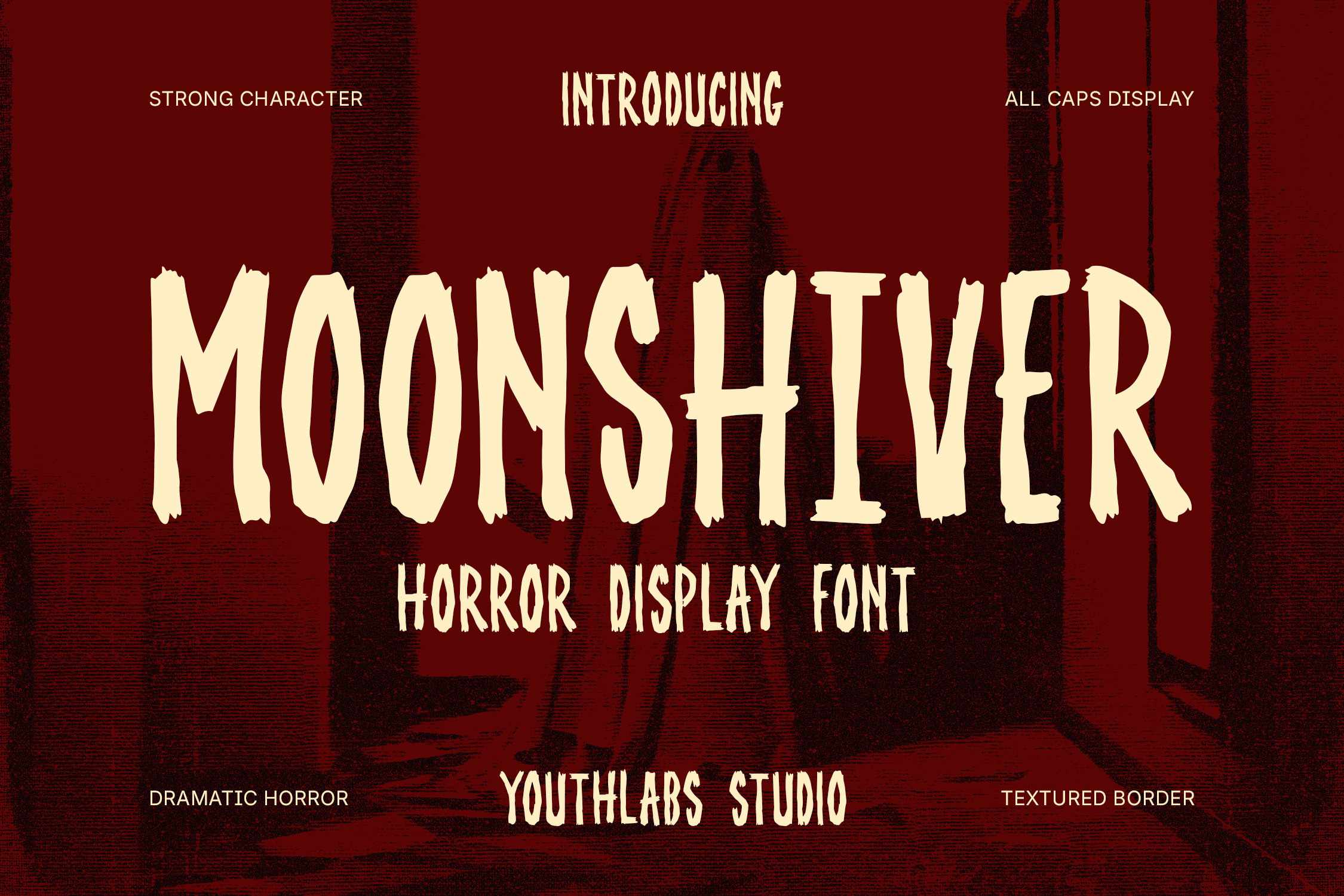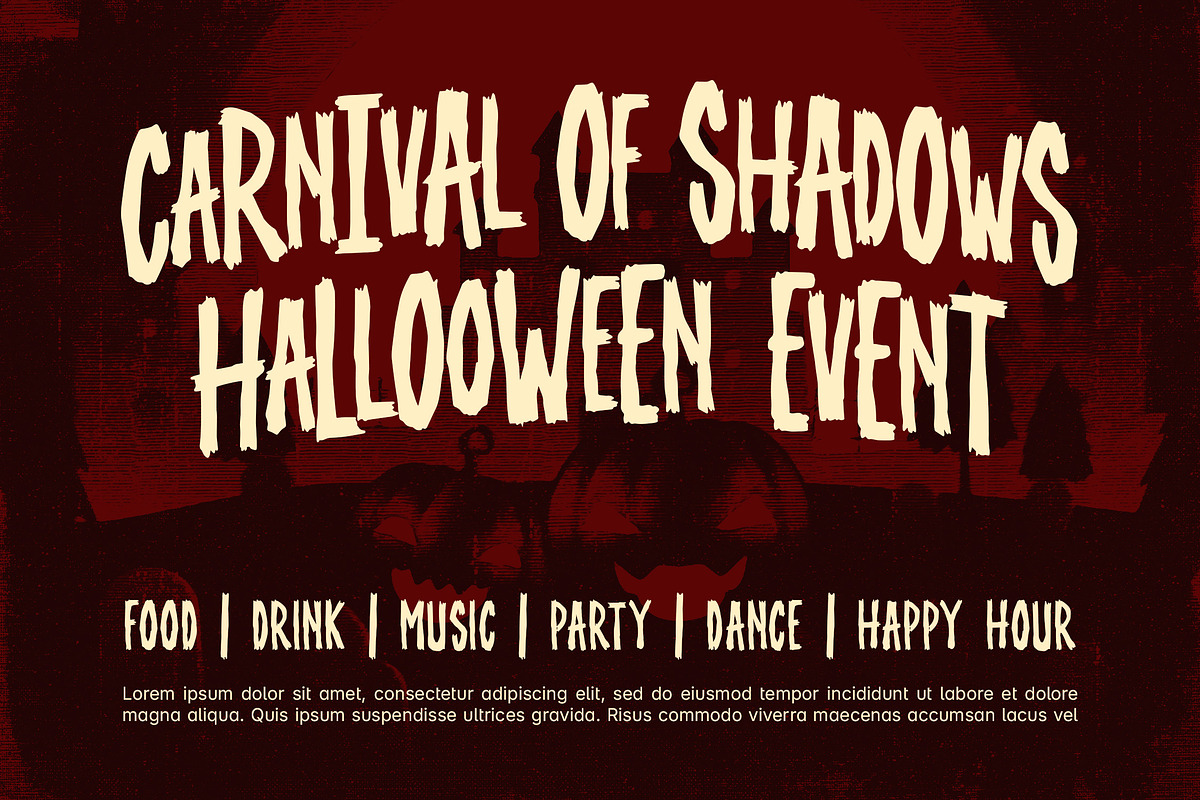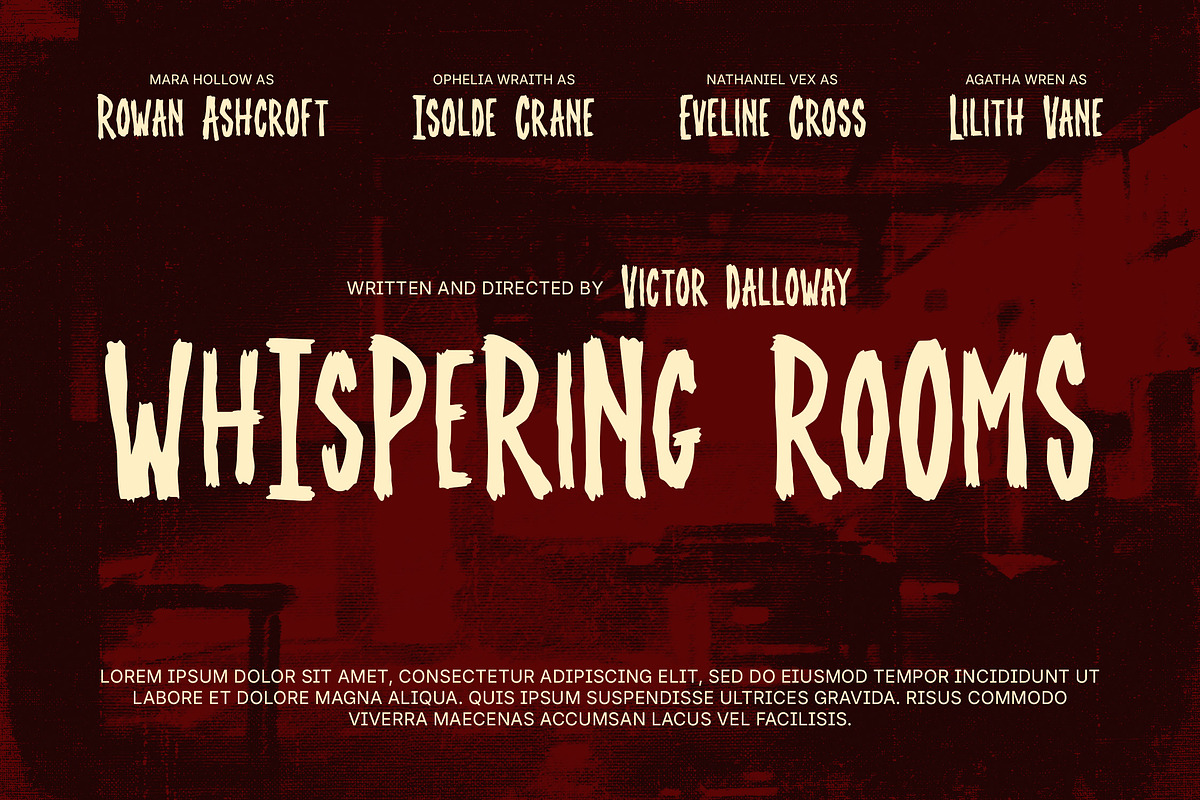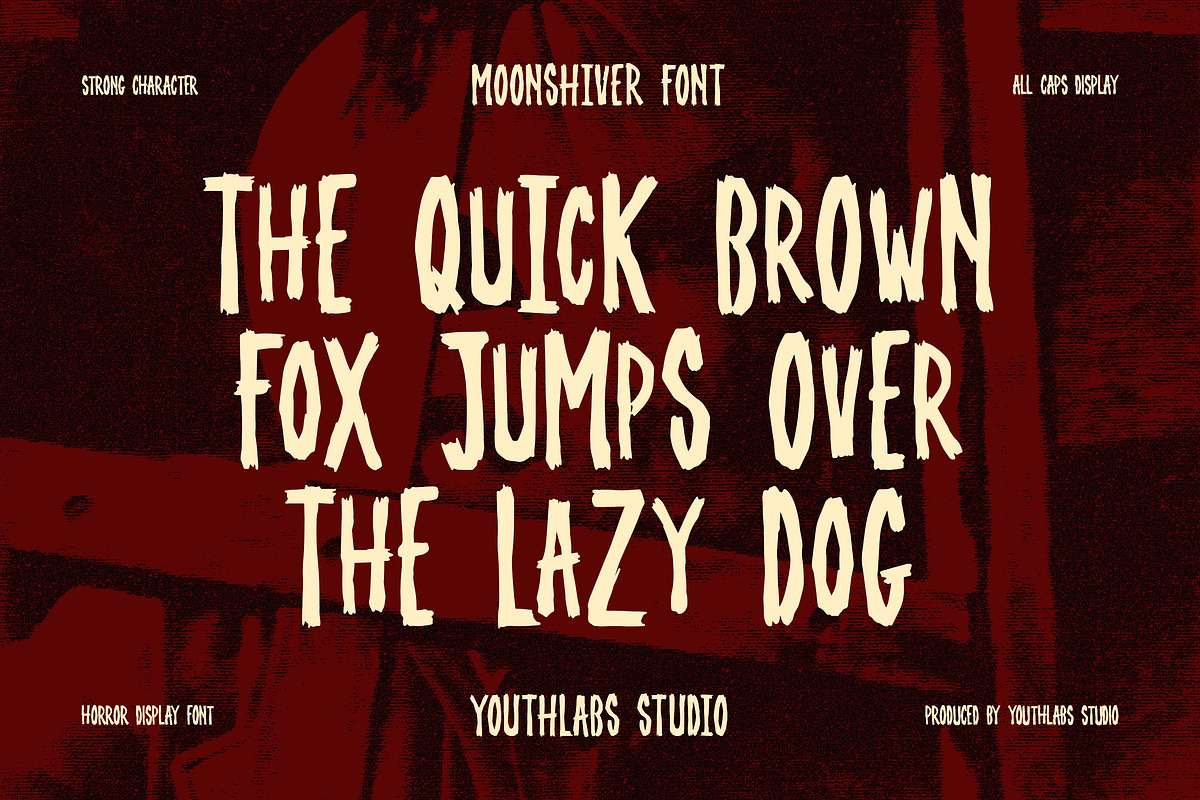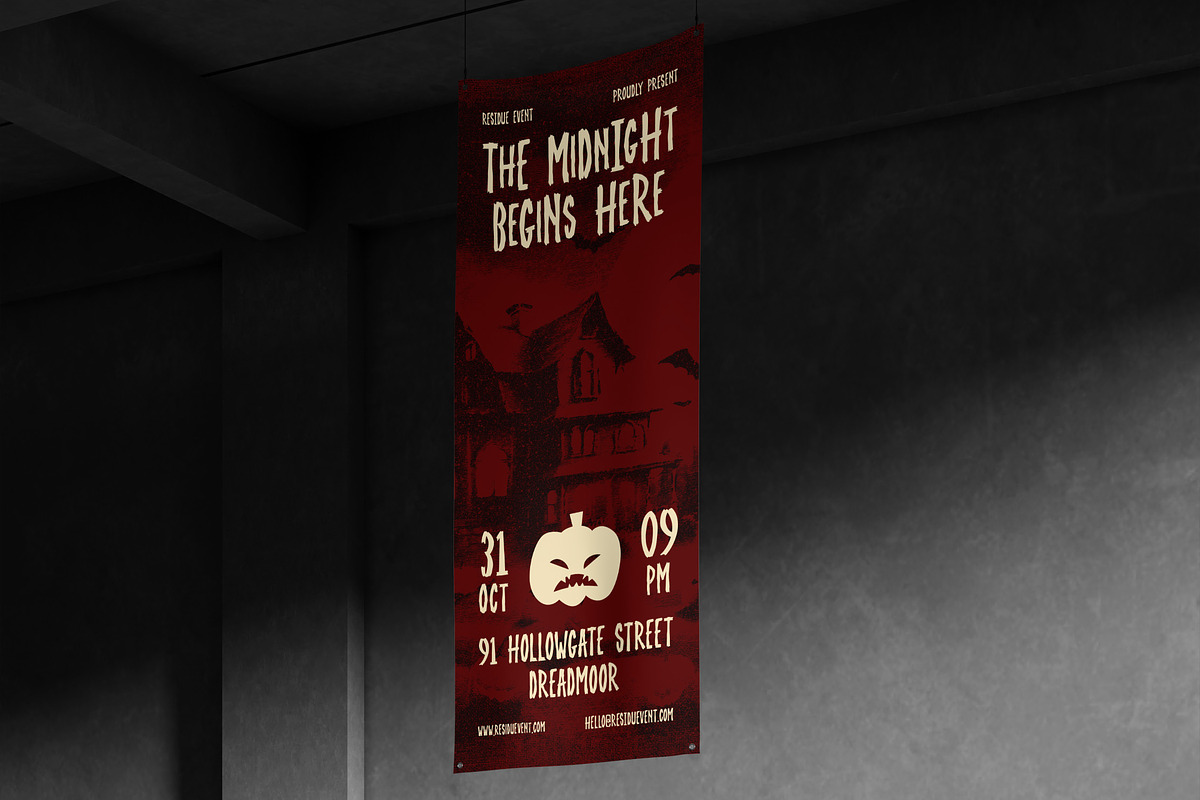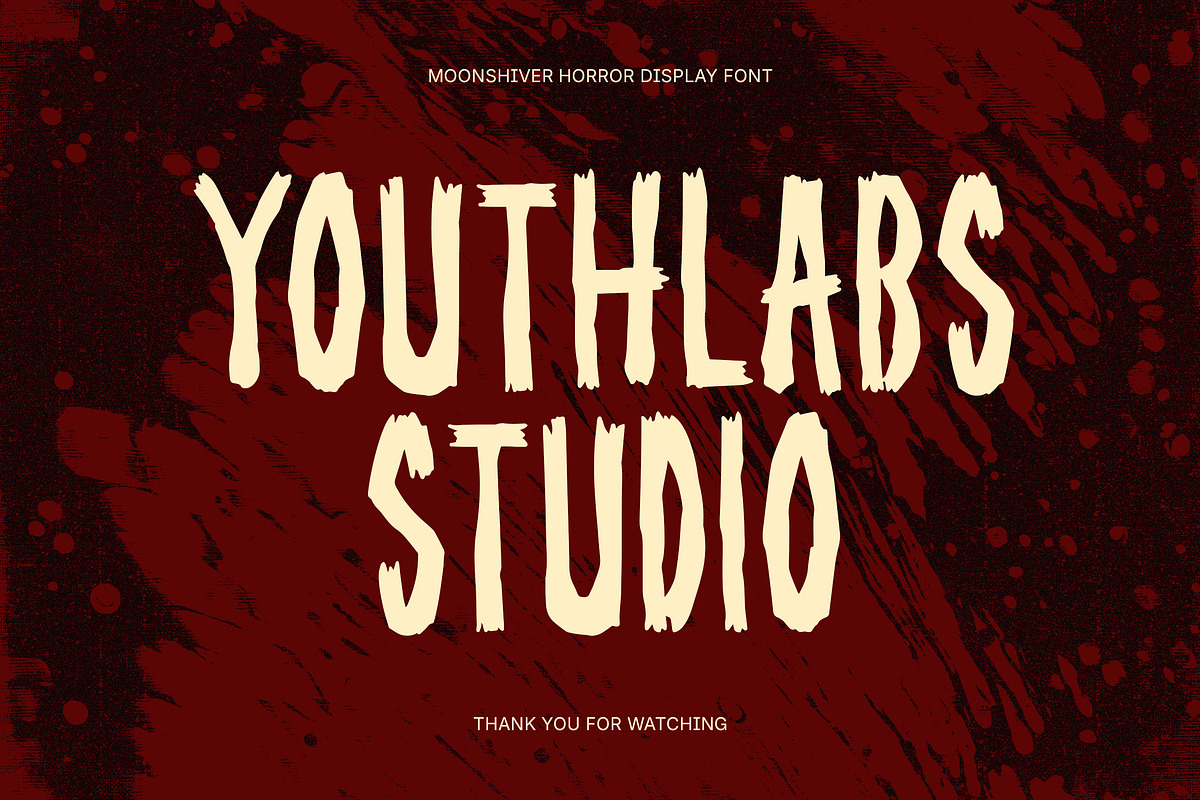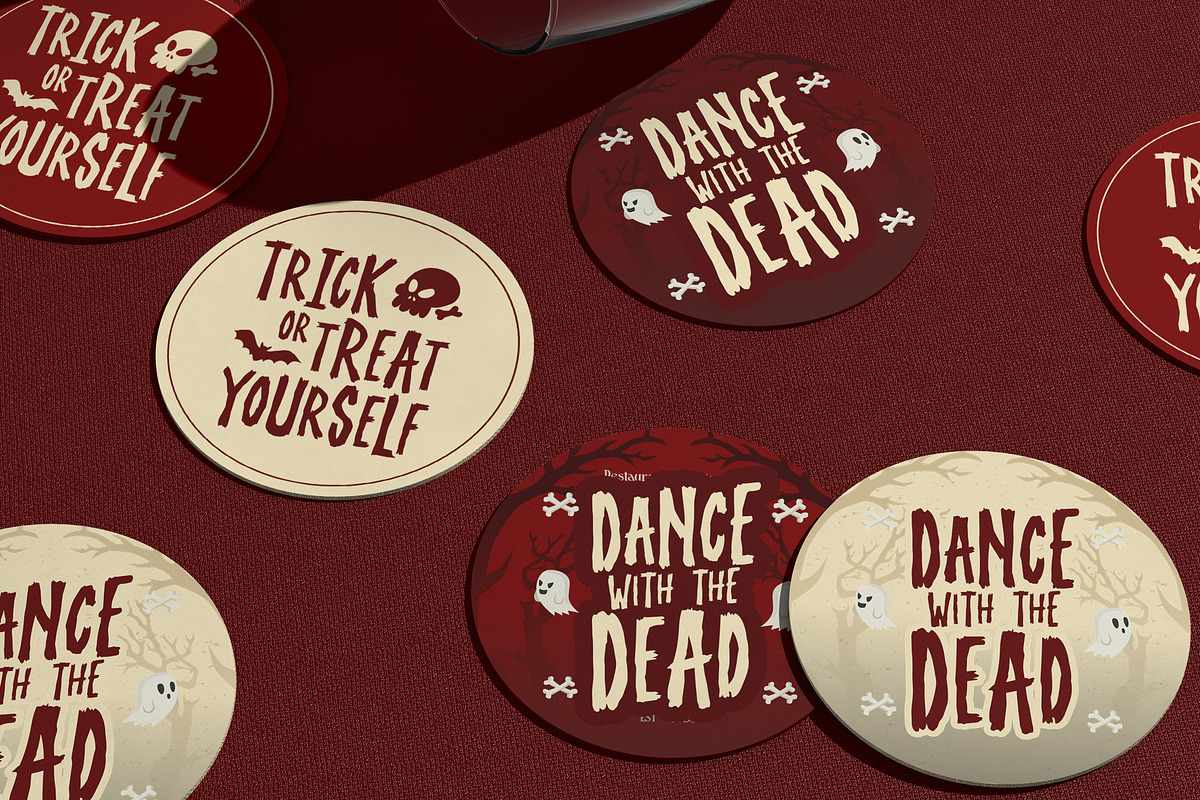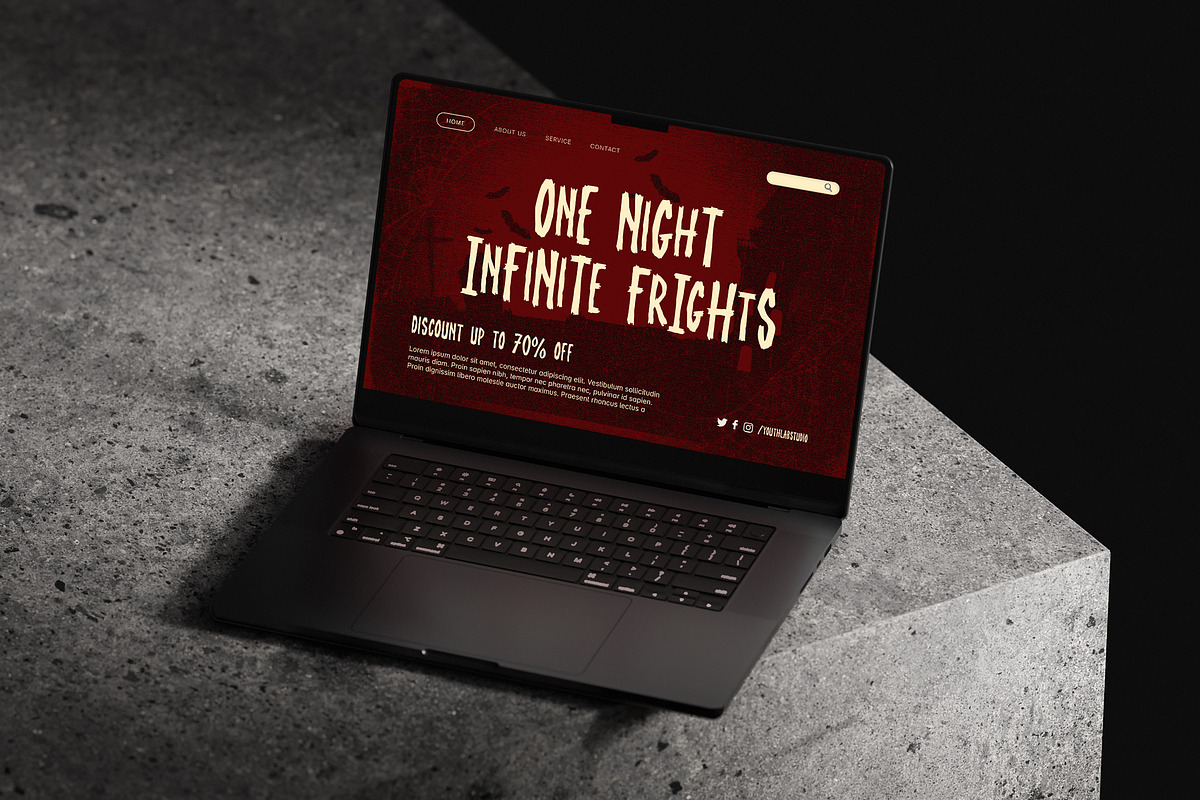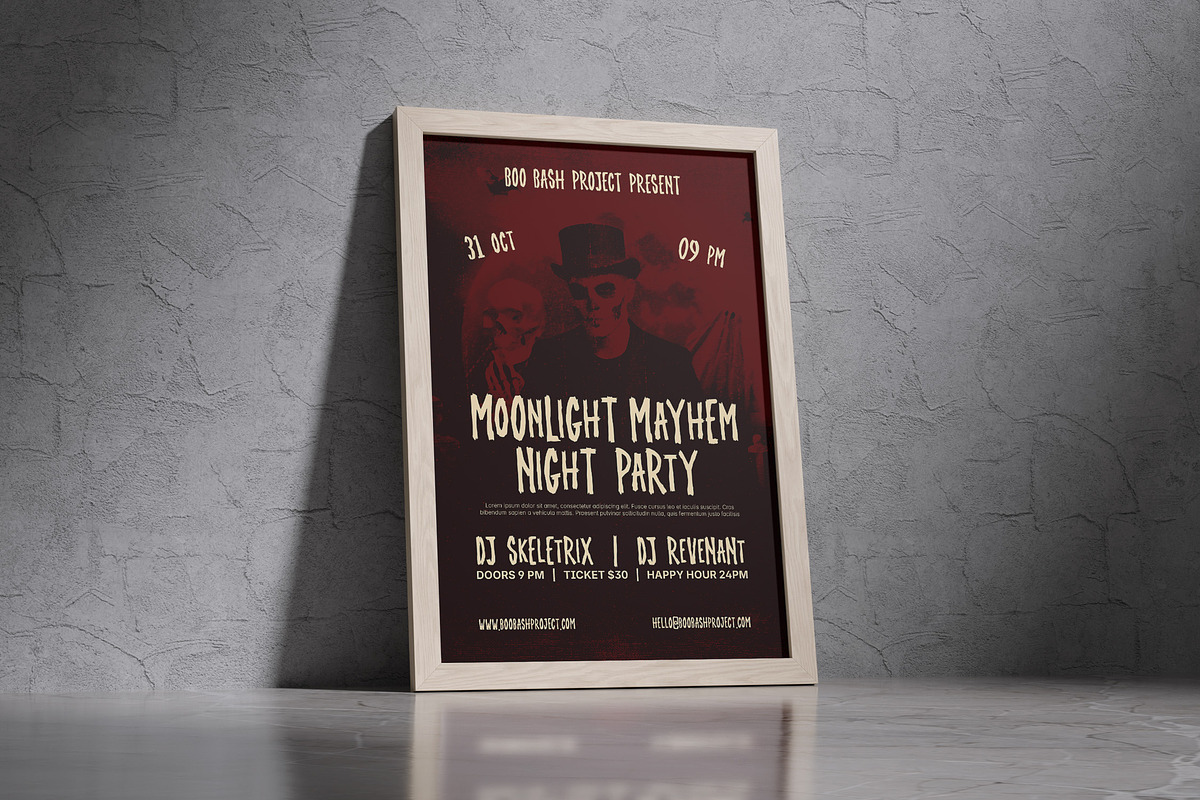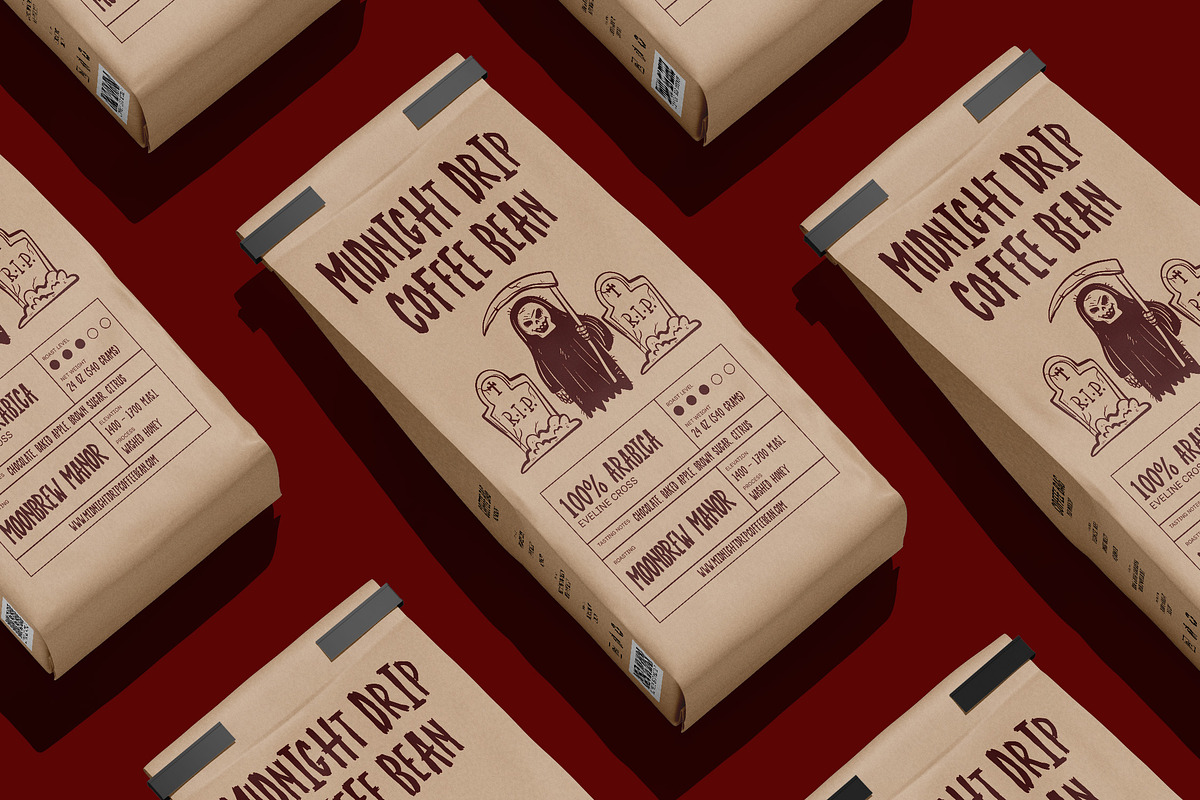
Moonshiver - Horror Display Font
Moonshiver is a dramatic horror display font that sends chills down your spine. Designed with jagged, hand-drawn strokes and a gritty texture, it perfectly captures the tension of dark hallways, eerie shadows, and unseen whispers. Its all-caps form and strong character make every word scream with suspense and cinematic energy.
Whether you’re designing horror movie posters, Halloween party invitations, eerie branding, or dark merchandise, Moonshiver adds a haunting personality to every project. It’s bold, textured, and dripping with vintage horror charm—ideal for anything that needs to feel mysterious, scary, or thrilling.
- All Caps Horror Display Font
- Rough, textured letterform with vintage horror aesthetics
- Perfect for posters, movie titles, and Halloween designs
- Includes uppercase letters, numbers, and punctuation
- Great readability with a strong, bold presence I- nspired by classic horror movie typography